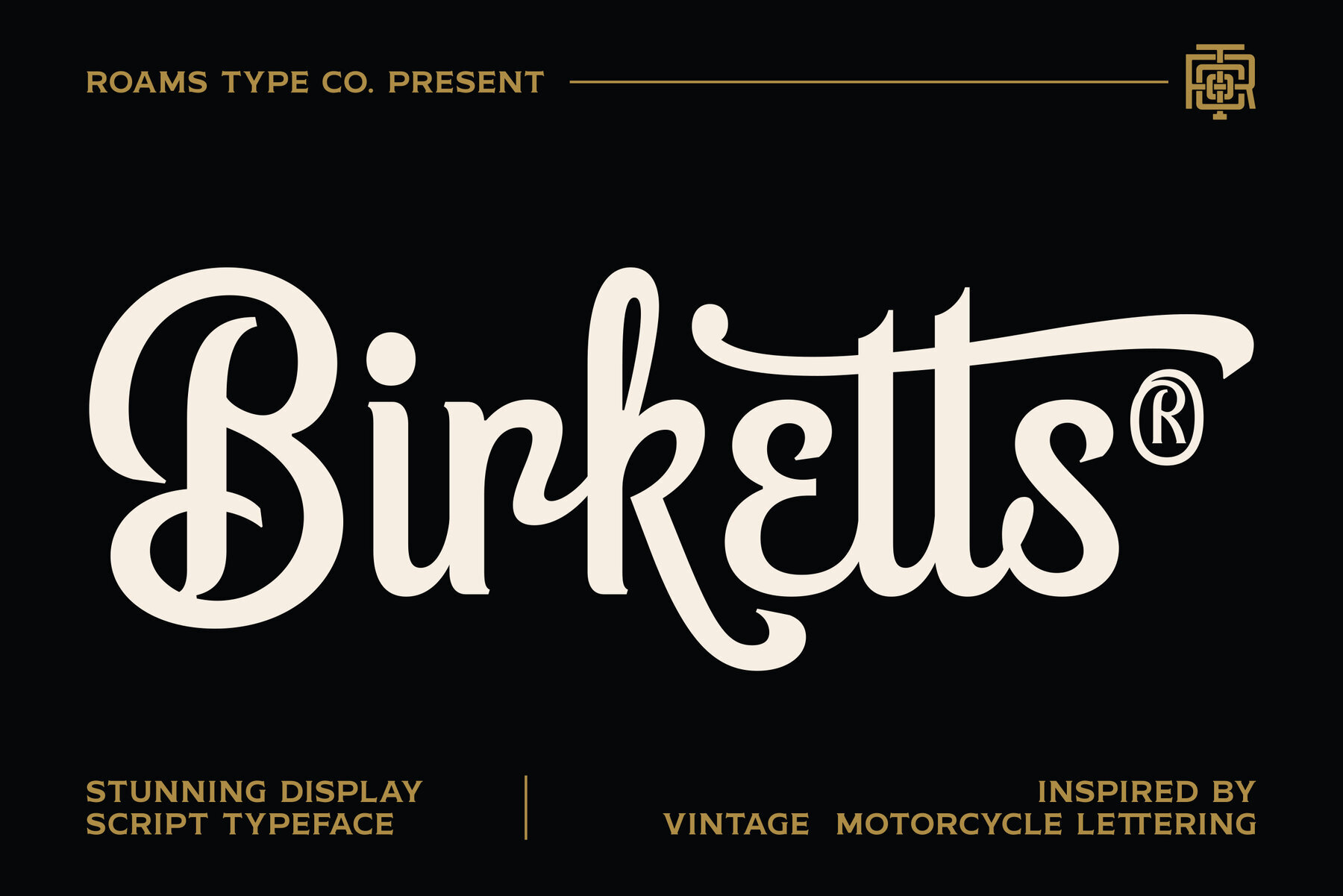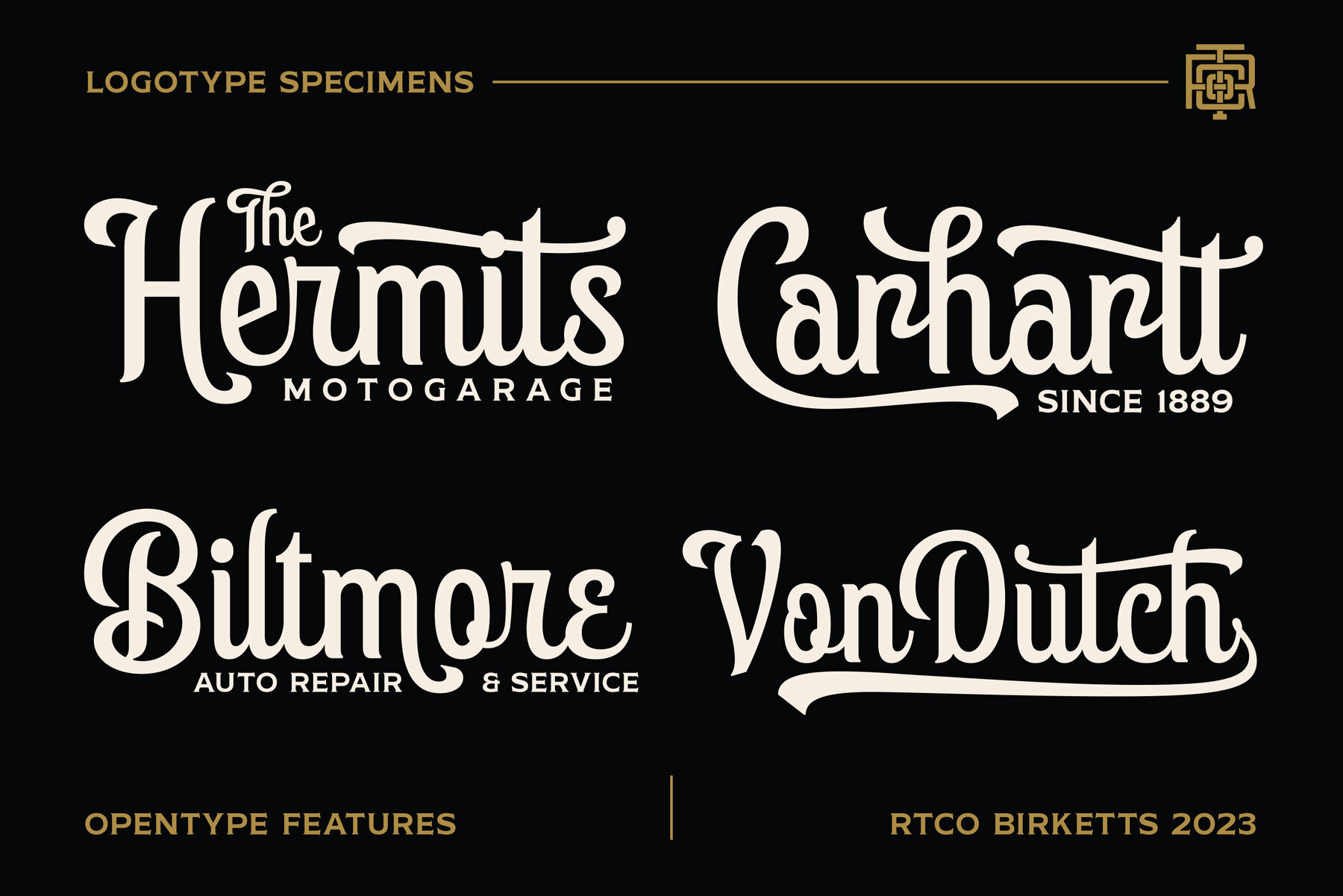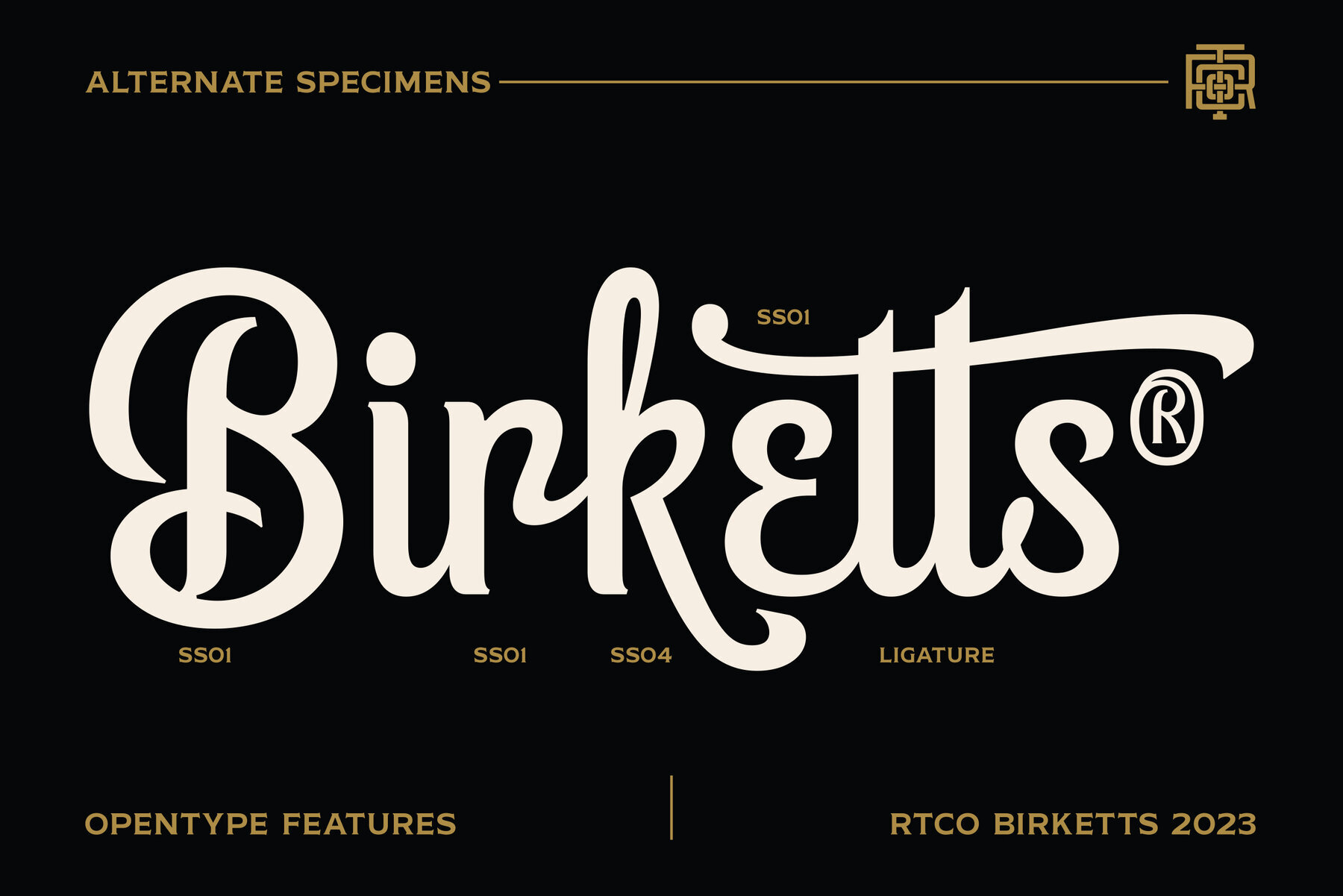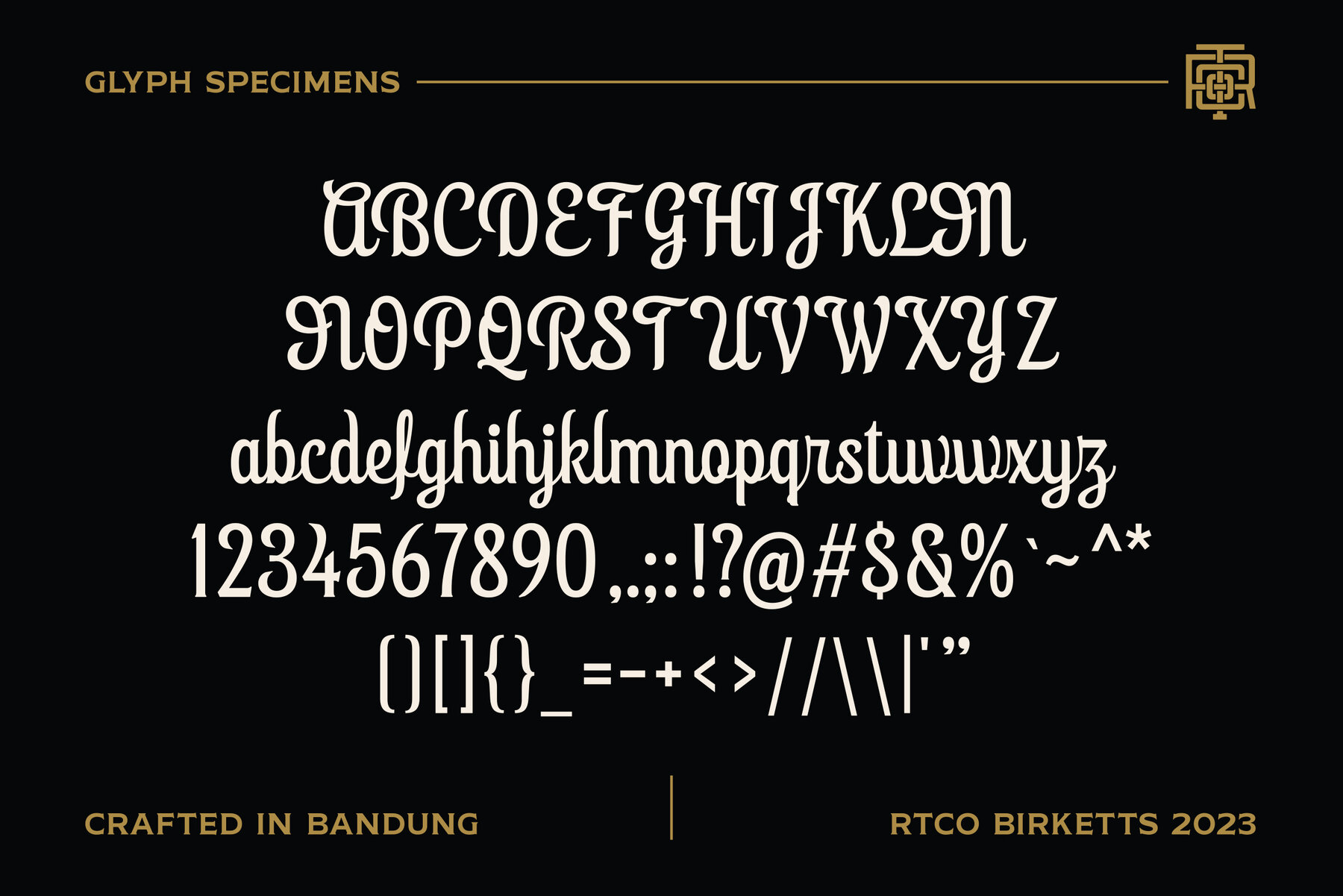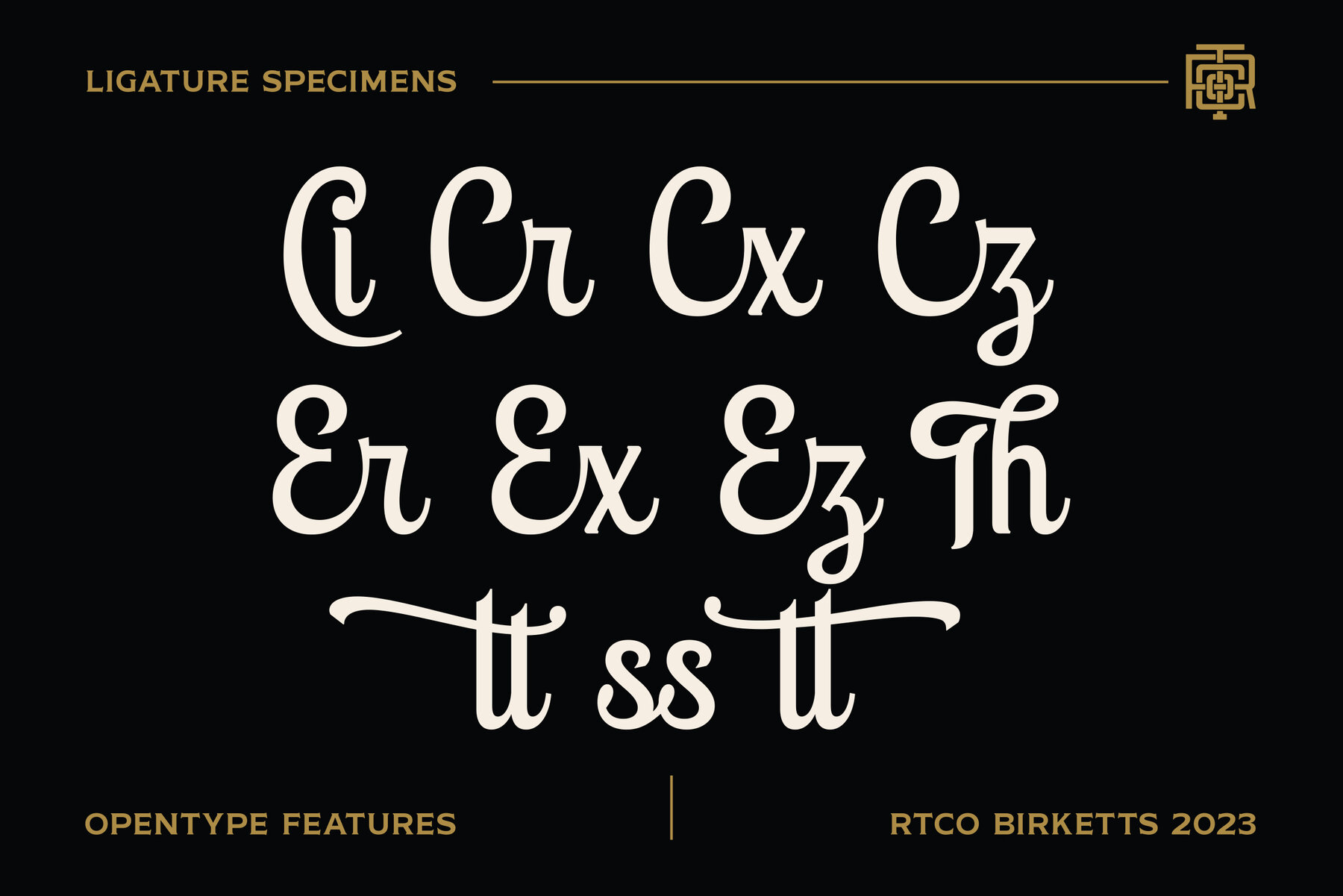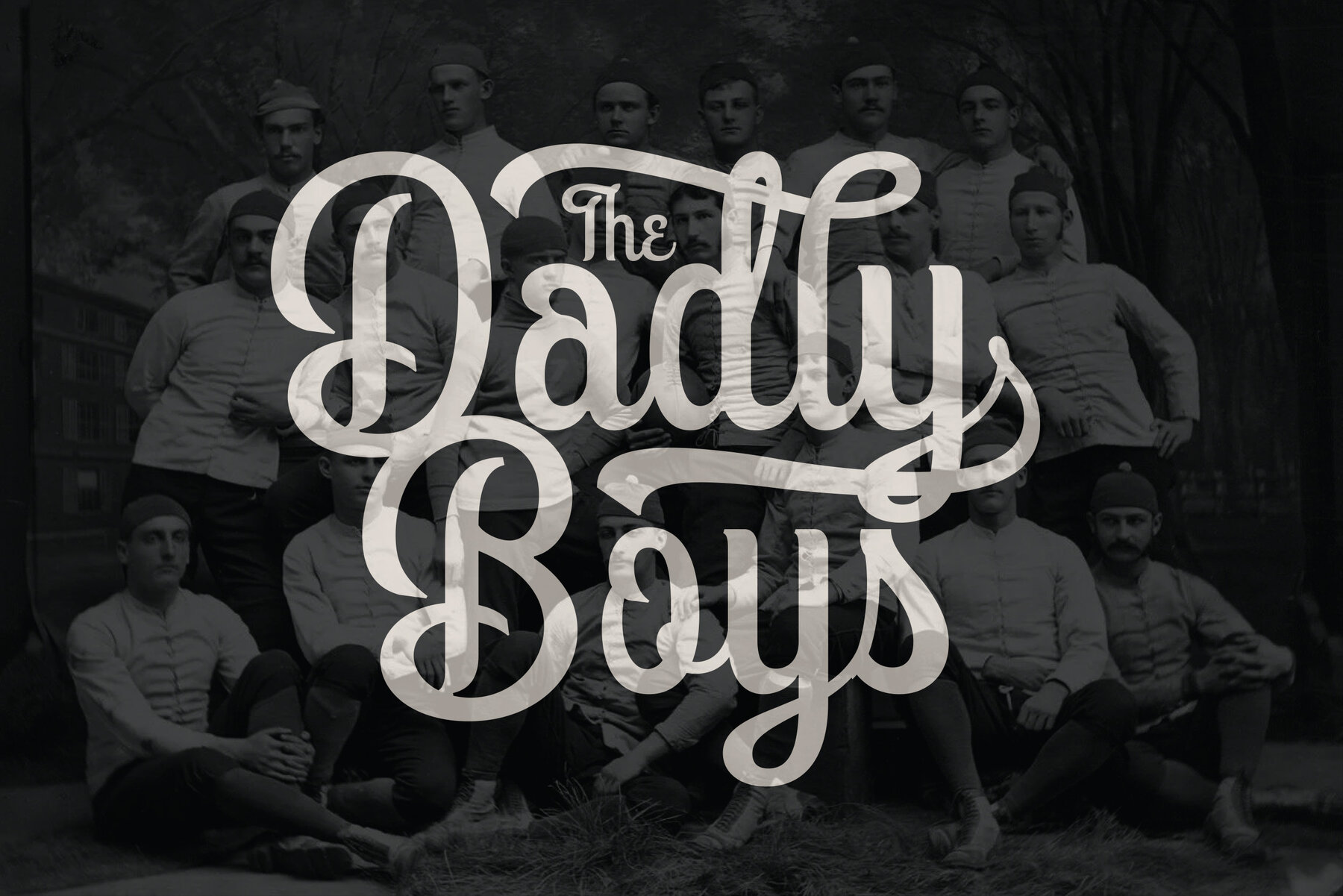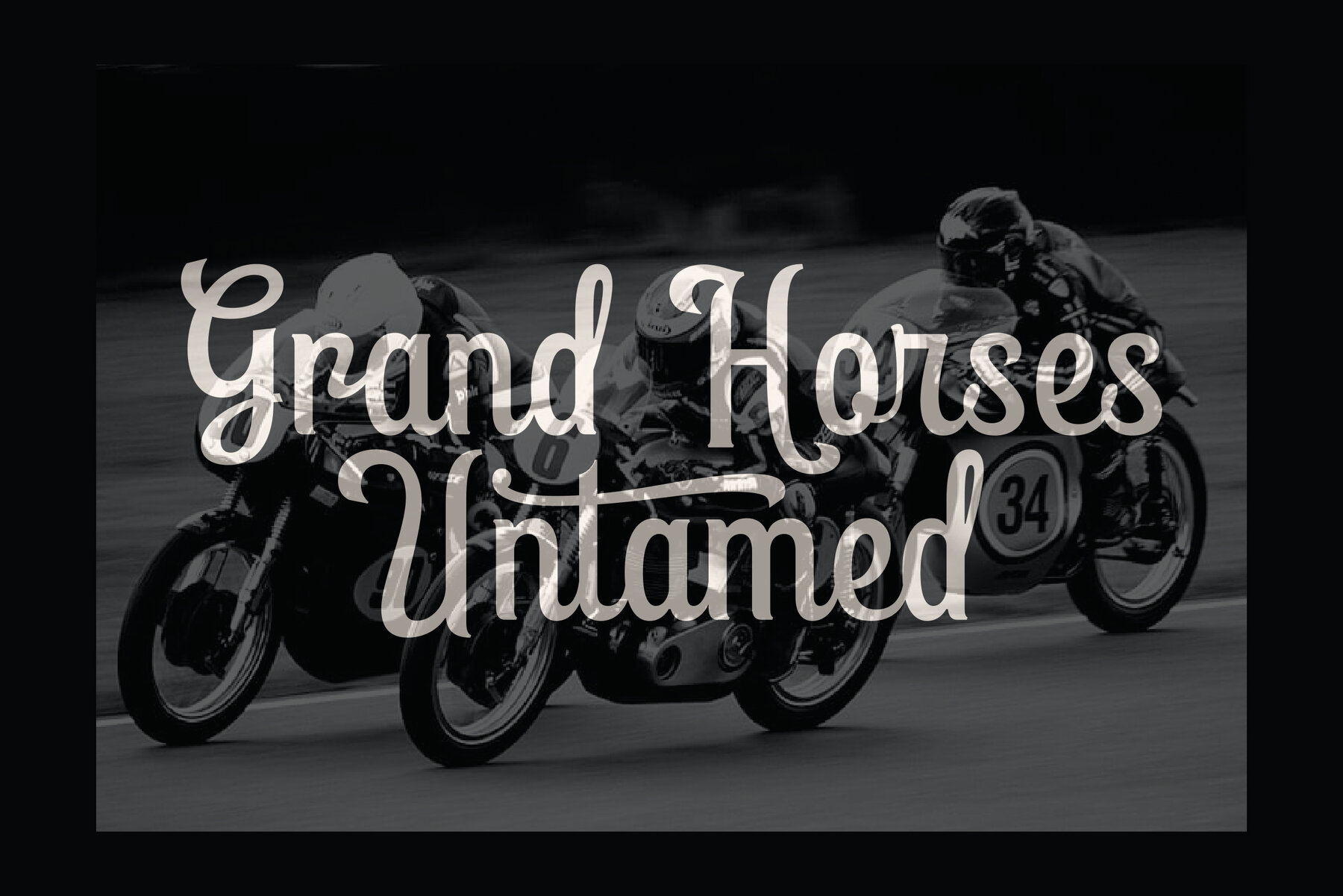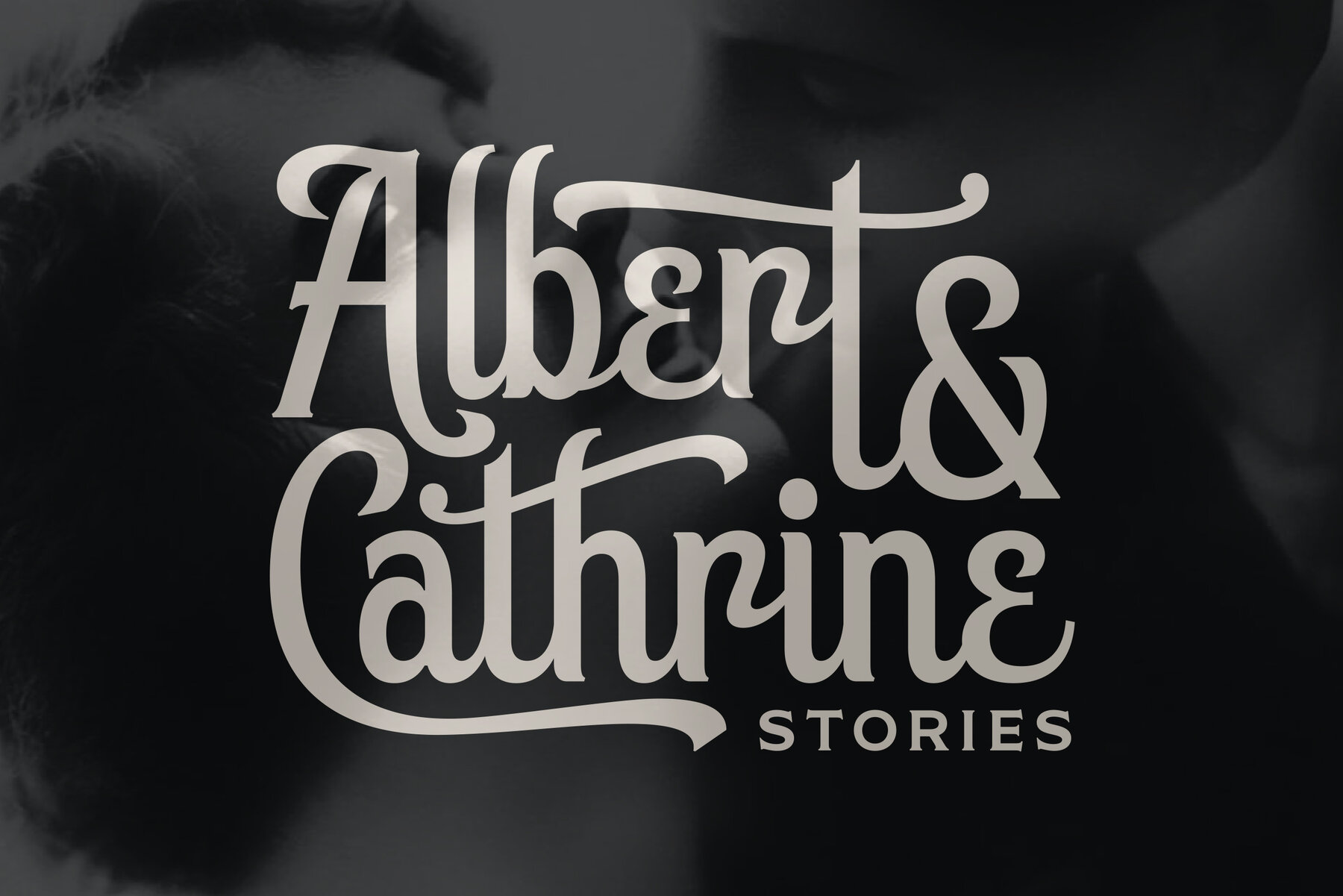
Birketts Font
RTCO Birketts
Birketts Font draws inspiration from vintage motorcycle logotype, embodying a classic graphic design aesthetic. This versatile typeface is ideal for creating impactful logotypes, stylish merchandise, eye-catching printed stickers, and other branding projects. With its blend of both uppercase and lowercase characters, as well as numerals and punctuation, Birketts offers a comprehensive solution for diverse design needs.
The font supports multiple languages, ensuring global usability. Its intrinsic vintage flair adds a distinct charm to any visual project, making it a perfect choice for designers looking to infuse their work with a nostalgic yet timeless touch. Bring your creative visions to life with the unique style and versatility of Birketts Font.